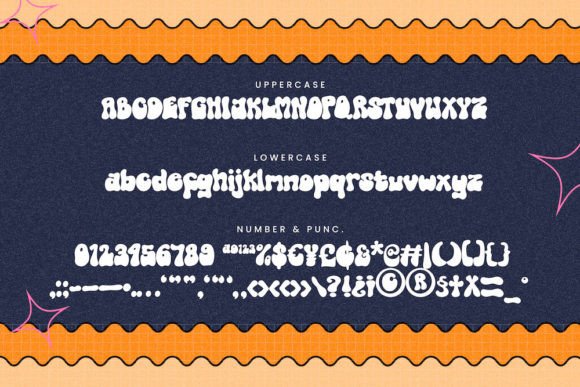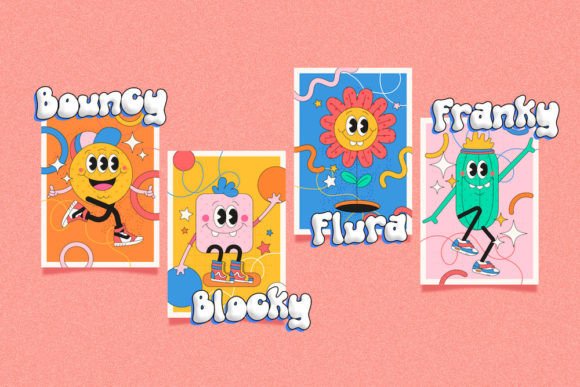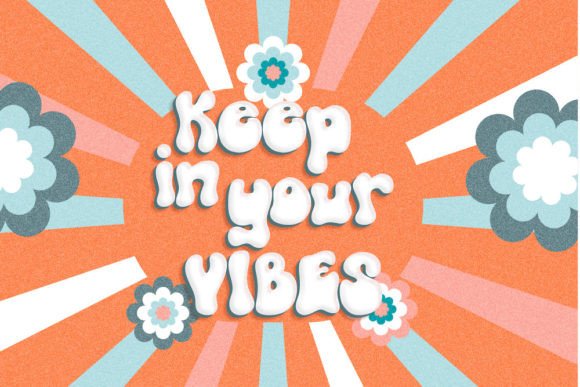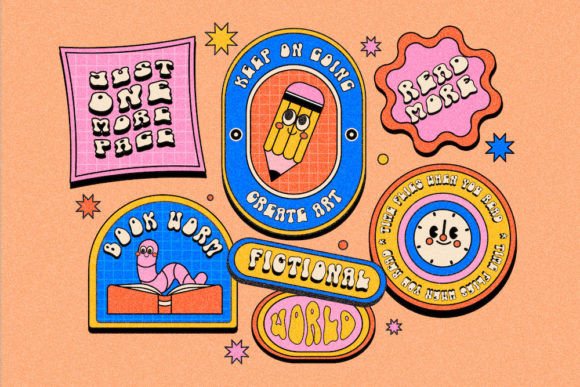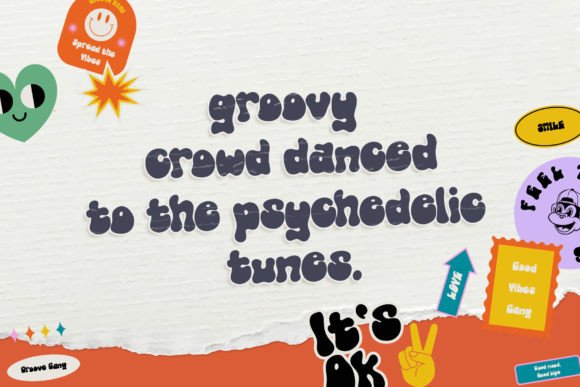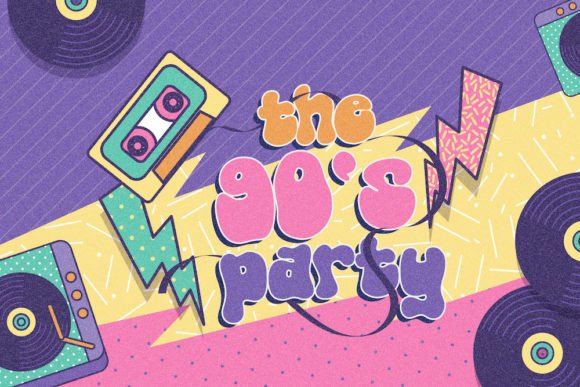
The Funky Retrovy Font: A Groovy Addition to Your Design Toolkit
I’ll never forget the time I was working on a retro-themed project for a client, and I just couldn’t find the right font to capture the essence of the era. I scoured the internet, tried out countless typefaces, but nothing seemed quite right. That was until I stumbled upon the Funky Retrovy font. It was like a ray of sunshine burst into my design studio, and I knew I had found the perfect fit. In this article, I’ll share my love for this funky font, its features, and how to make the most of it in your designs.
A Personal Review: What I Love About Funky Retrovy
Here’s what makes Funky Retrovy a standout font:
- ✨ Unique and quirky letterforms that perfectly capture the retro vibe
- ✅ Highly legible even at smaller font sizes
- 🎉 Extensive character set with plenty of glyphs and stylistic alternates to play with
- 💃 Perfect for creative projects that require a dash of fun and personality
While Funky Retrovy is an amazing font, there are a few things to keep in mind:
- 🤔 Limited use in formal or professional contexts due to its playful nature
- ⚠️ May not work well with very short texts or headings that require a more condensed font
Funky Retrovy comes with a range of OpenType features and glyphs that can elevate your designs. Here are a few tips:
- Use stylistic alternates to add more variety to your text
- Experiment with swashes and ornaments to add a touch of elegance
- Don’t be afraid to mix and match different glyphs to create a unique look
The Backstory Behind Funky Retrovy
Funky Retrovy was designed with one goal in mind: to capture the essence of retro fun and playfulness. Inspired by the iconic designs of the 1970s and 1980s, this font is perfect for designers who want to add a dash of nostalgia to their work.
| What type of designs is Funky Retrovy best suited for? | Funky Retrovy is perfect for retro-themed designs, disco-inspired graphics, and creative projects that require a fun and playful touch. |